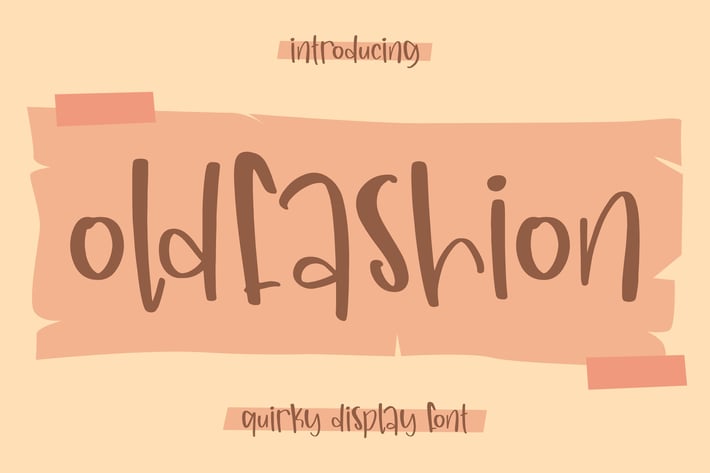
Oldfashion Quirky Display Font
Oldfashion Quirky brings a playful and hand-drawn aesthetic to your creative projects. With its irregular strokes and unique personality, this font is perfect for adding a fun and casual vibe to your designs. Ideal for posters, quotes, social media posts, packaging, and any project that calls for a charming, quirky touch.
+ Hand-drawn quirky style
+ Unique and playful letterforms
+ Posters & flyers
+ Children’s books & illustrations
+ Social media content
+ Packaging & product design
+ Greeting cards & invitations
Bring a dose of quirky charm to your designs with Oldfashion – the font that makes every word feel playful and full of personality.